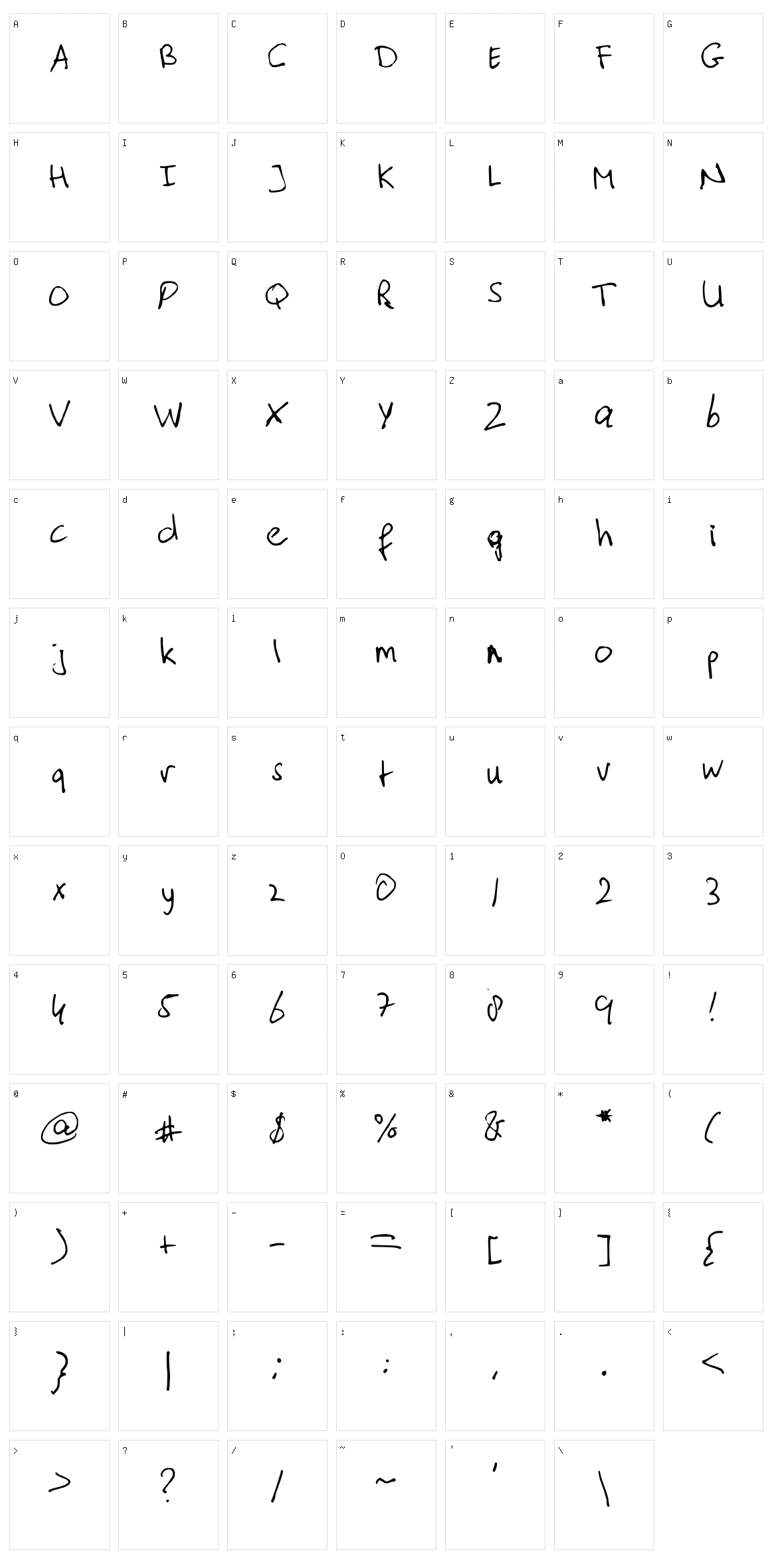
The free font Typischvoornu 2014 is carefully designed by Gideon Roggeveen, showcasing a thoughtful balance of creativity and usability and falls under the Script font style. When you download the ZIP file, it contains only 21.41 KB of font files, making it lightweight and quick to download. Please review the license details below to understand permitted usage and distribution rights. If license information is not available, we recommend using this font for personal projects only or contacting the author directly for commercial usage permissions.